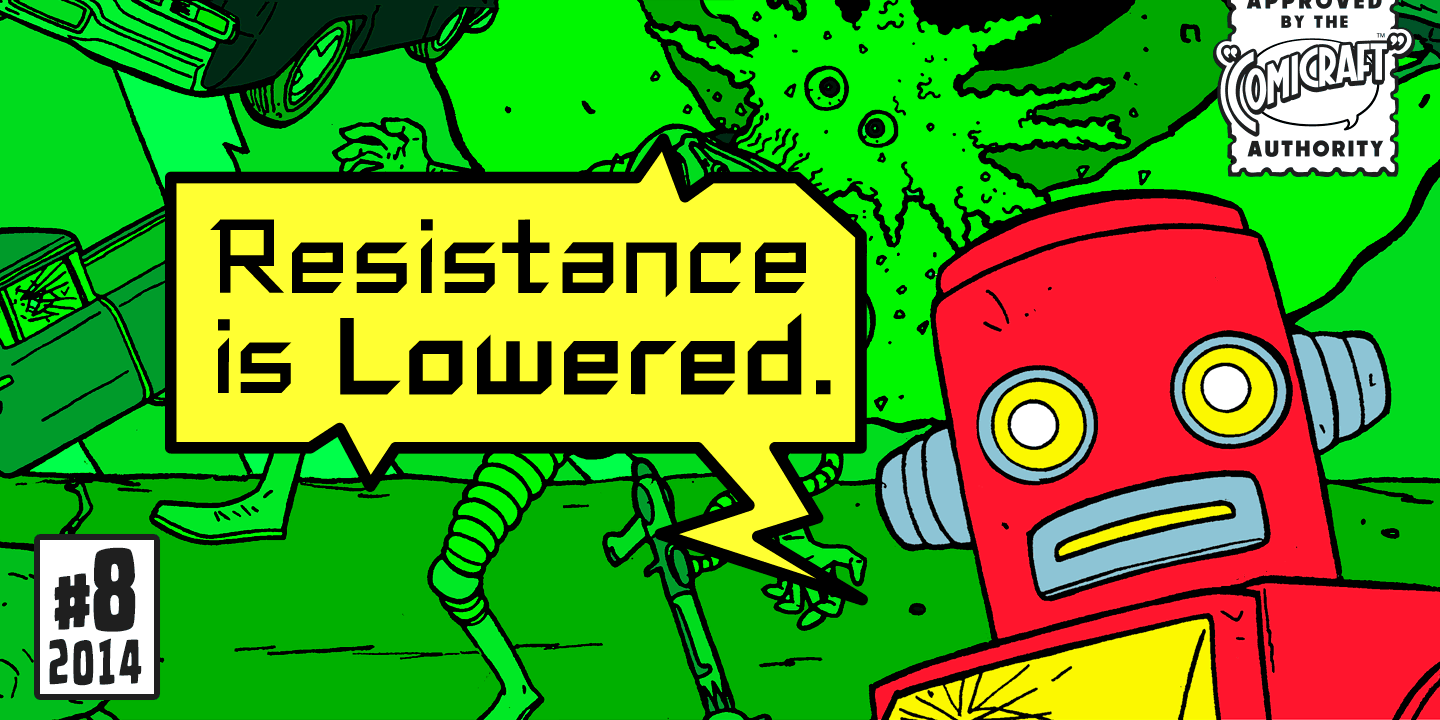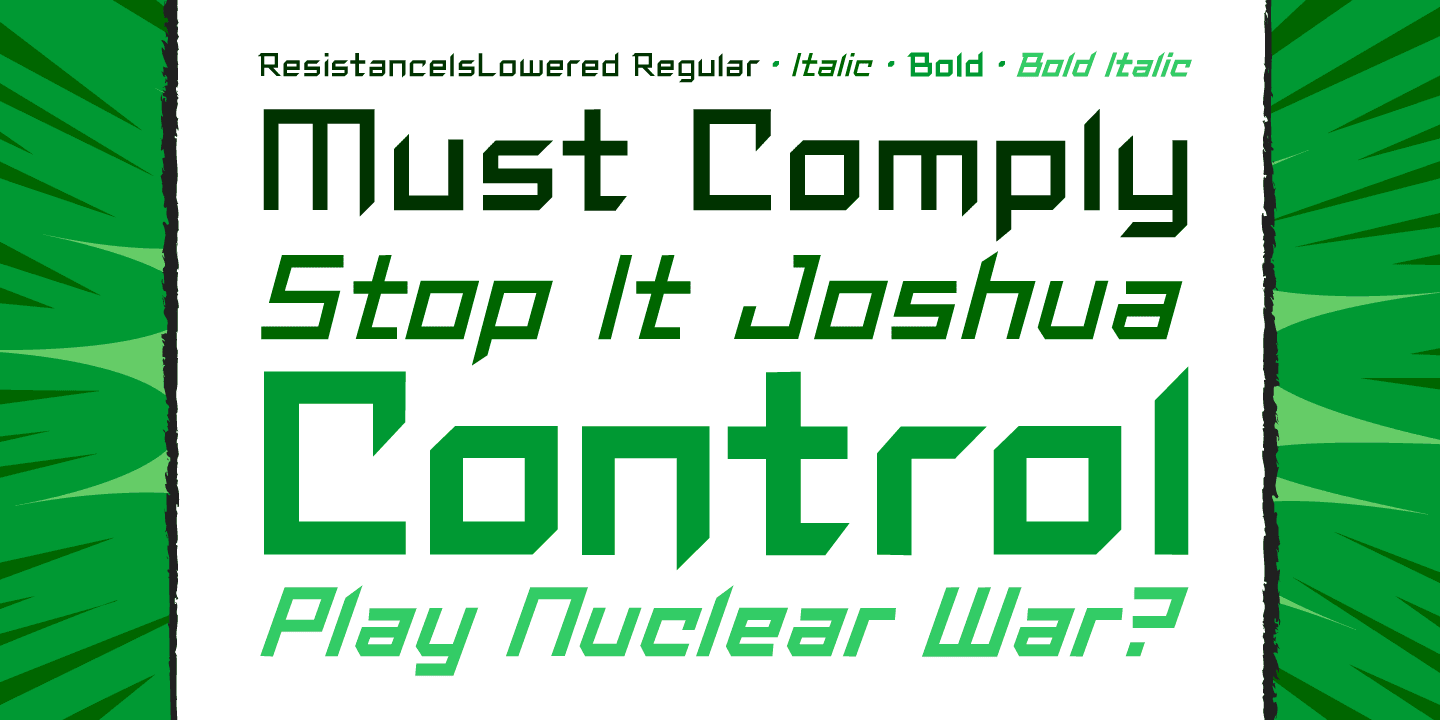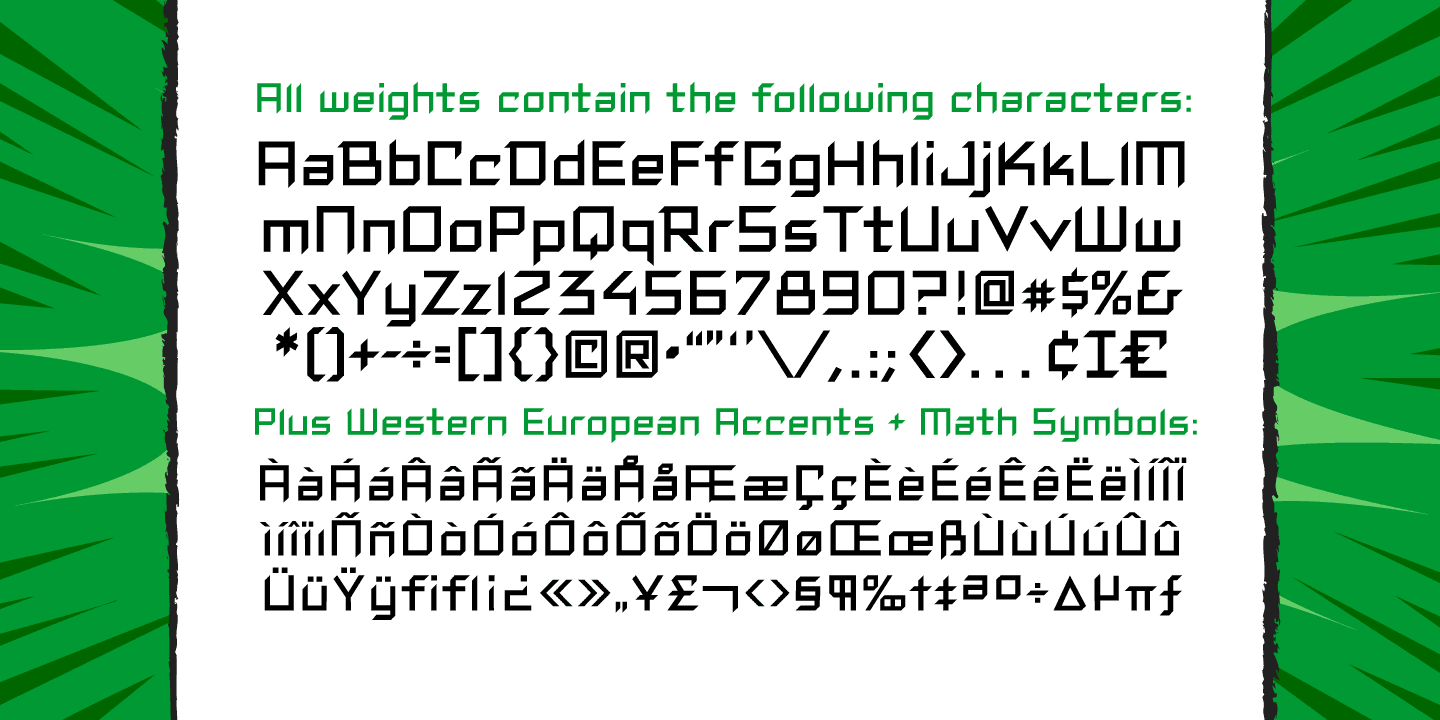
Resistance is Lowered
Font Family by Comicraft Fonts
Resistance is Lowered is a futuristic sans serif family with a sharp, angular build and a sleek, tech-driven attitude. Its condensed proportions, clean lines, and blocky geometric shapes give it a strong digital voice, while the italic styles add extra motion and energy.
This 4-style family from Comicraft Fonts includes Regular, Bold, Bold Italic, and Italic, giving you a compact range for standout display typography. With its uppercase emphasis and stylized sci-fi character, it feels especially suited to posters, branding, packaging, signage, and other graphic work that calls for a modern, high-impact look.
If you need a typeface that reads bold, narrow, and distinctly contemporary, this one brings a crisp, controlled edge. It is a natural fit for projects that lean futuristic, dynamic, or industrial without losing clarity.